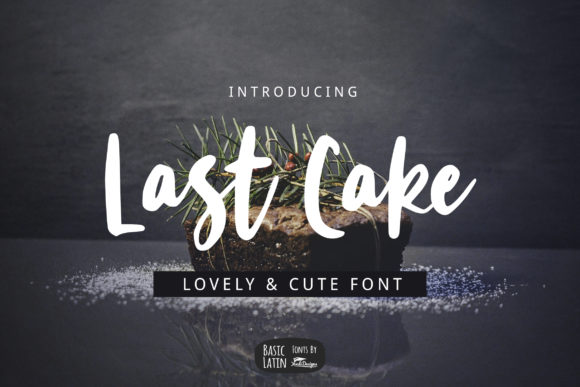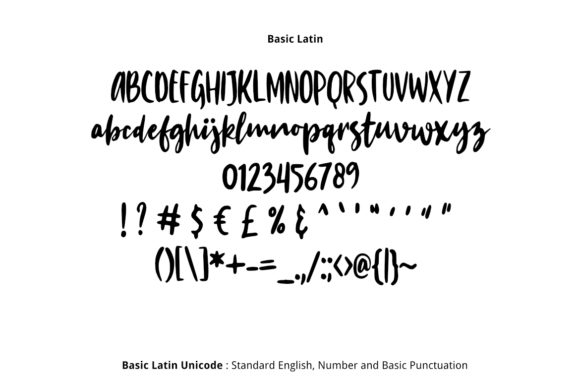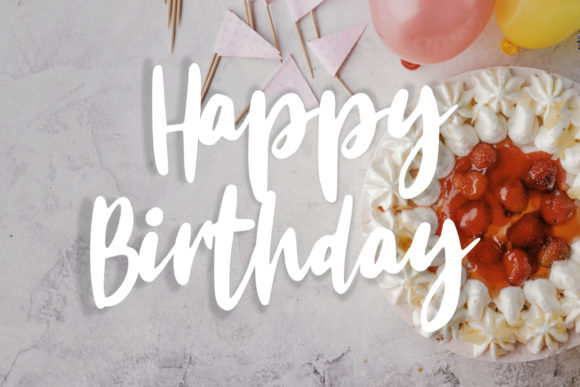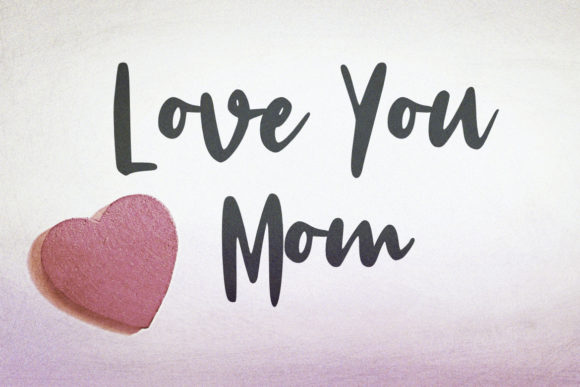
Last Cake Font
About Last Cake Font
Last Cake is a casual, fun handwritten font. Clean and a little bit quirky, this font is the perfect fit for all of your logos, branding, social media, and crafty DIY projects